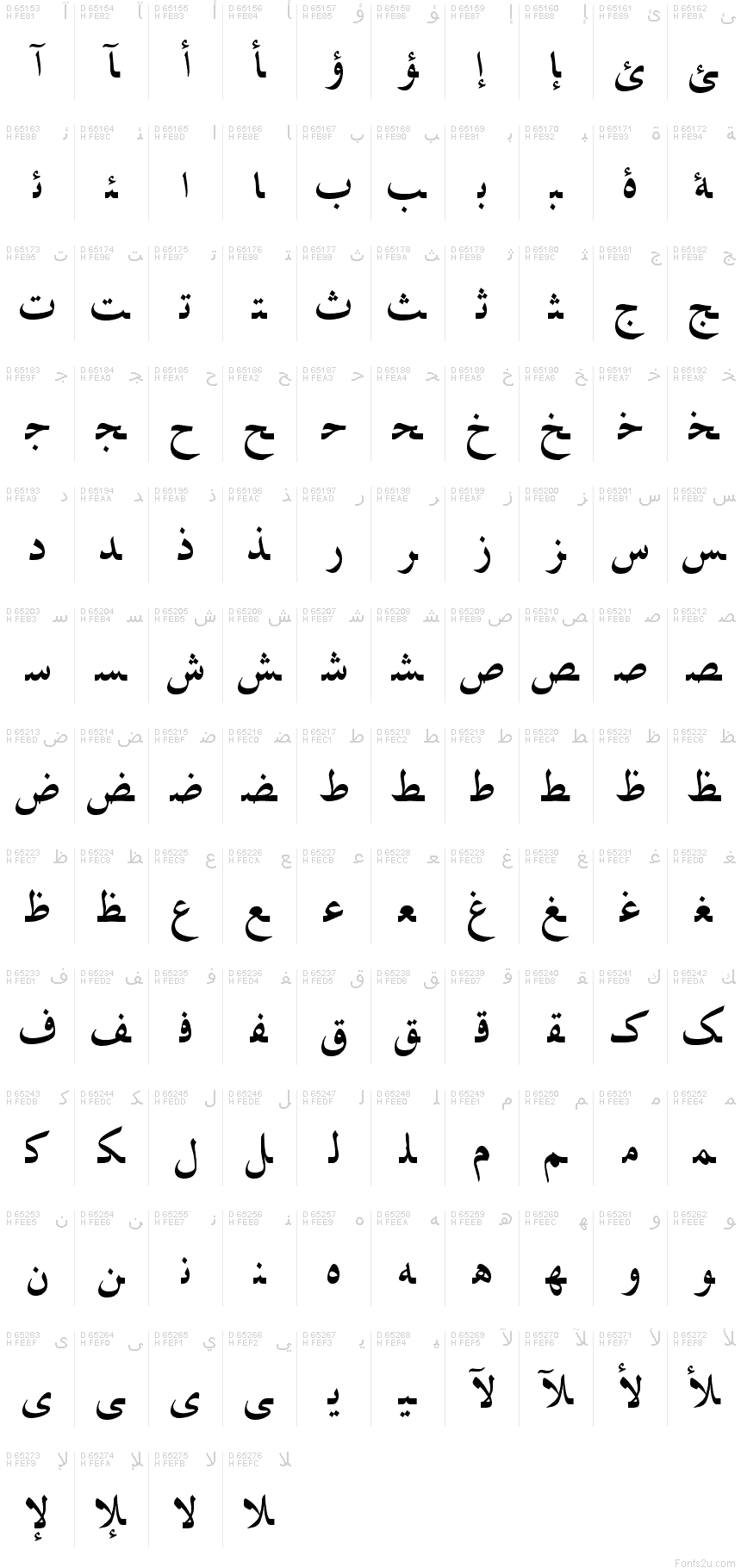
B Shiraz by Borna Rayaneh is a free Arabic calligraphic font with a soft, handwritten sweep. The letters lean into a compact, flowing rhythm, mixing rounded bowls and tapering strokes that give the line a lyrical Shiraz-style warmth rather than a rigid, formal texture.
It fits naturally in cultural posters, book covers, packaging, restaurant branding, and short editorial headings where a free font needs a more personal Arabic voice. Use it for title cards, invitations, or logo-style wordmarks when you want connected movement and a slightly poetic tone instead of strict geometric regularity.